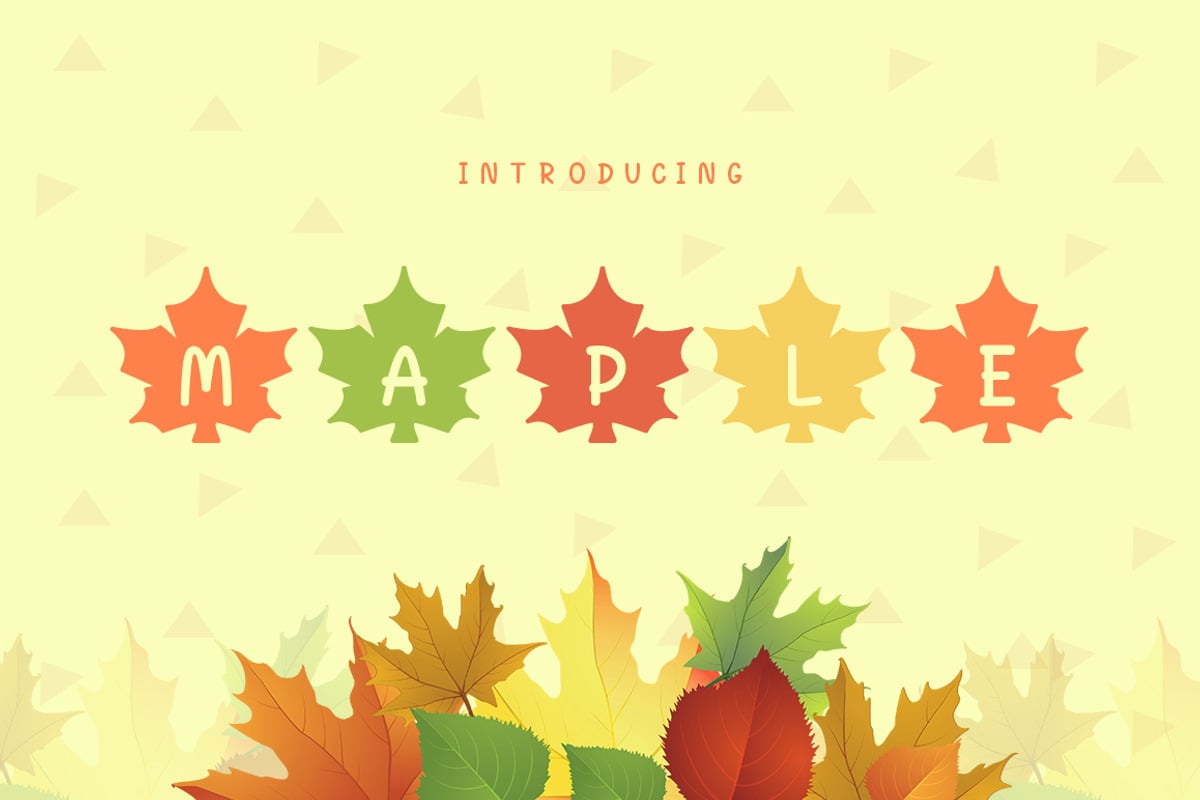
Maple Font
Bring autumn charm to your designs with this playful maple leaf-inspired display typeface. Maple Font is a fun and unique decorative typeface that's perfect for adding seasonal warmth to your creative projects. This distinctive font works beautifully for logo design, brand identity, greeting cards, posters, and any design project that needs a touch of natural charm. Files included: Maple Regular (otf & ttf) Maple Clean (otf & ttf) Maple Outline (otf & ttf) Thank you for checking and ...